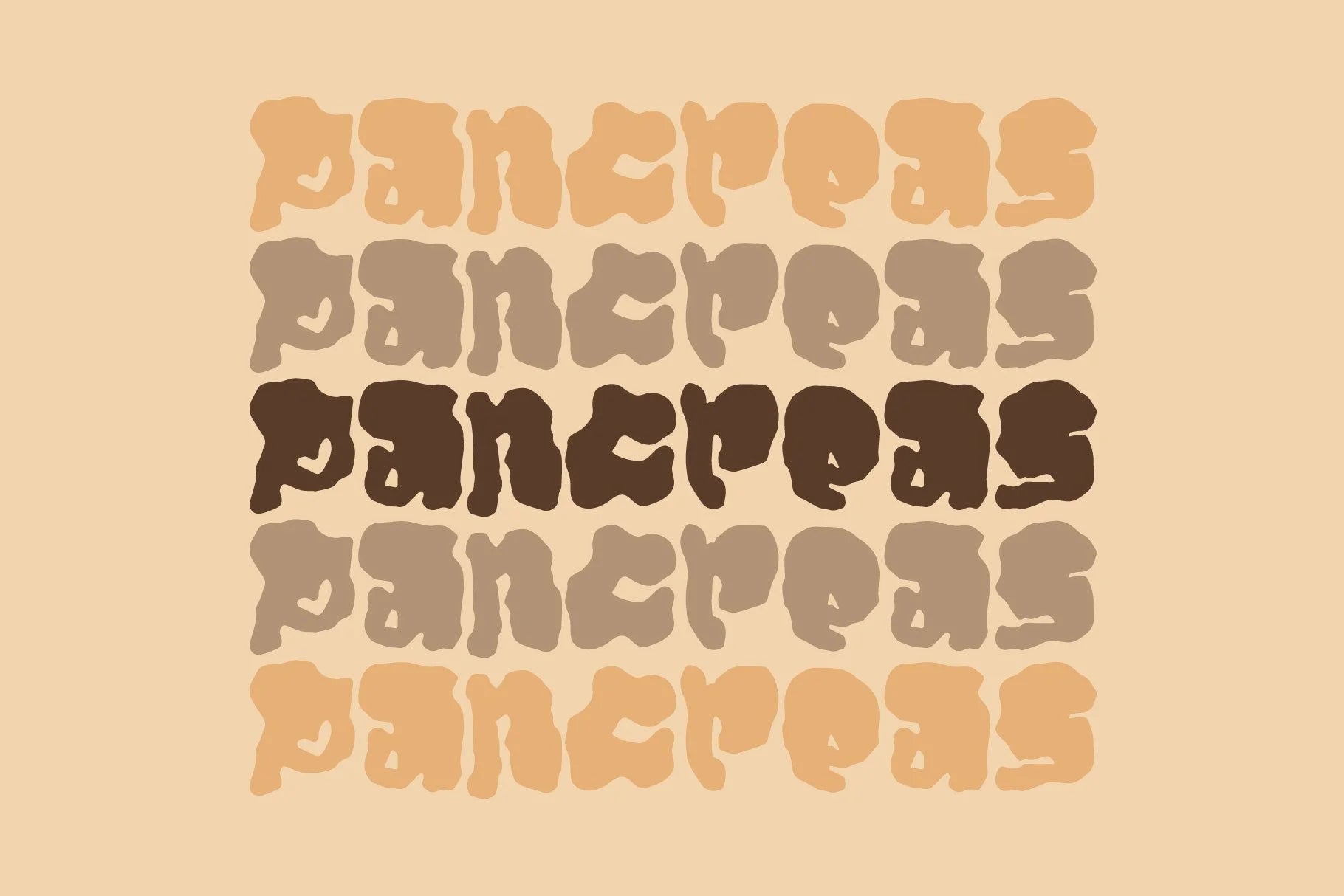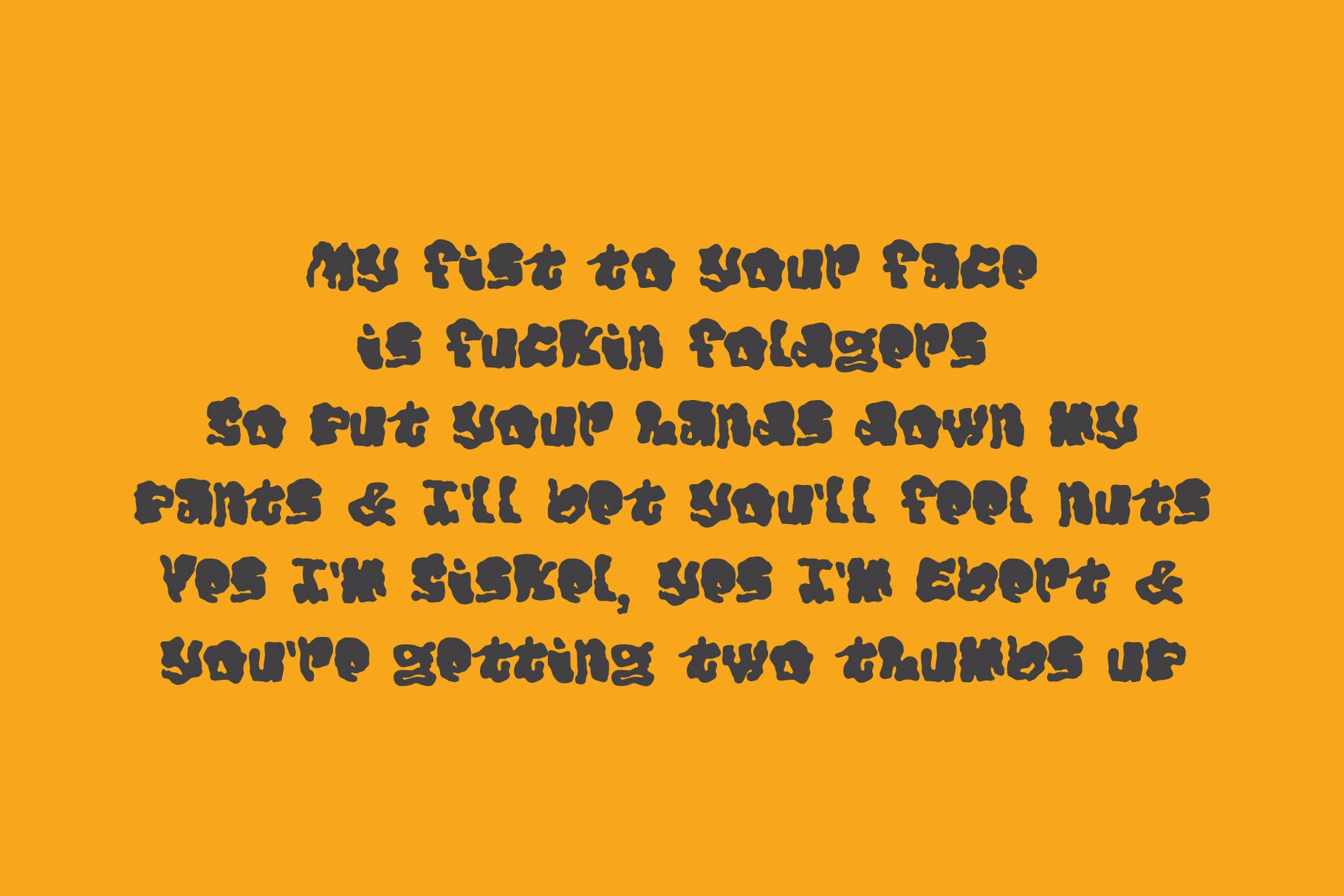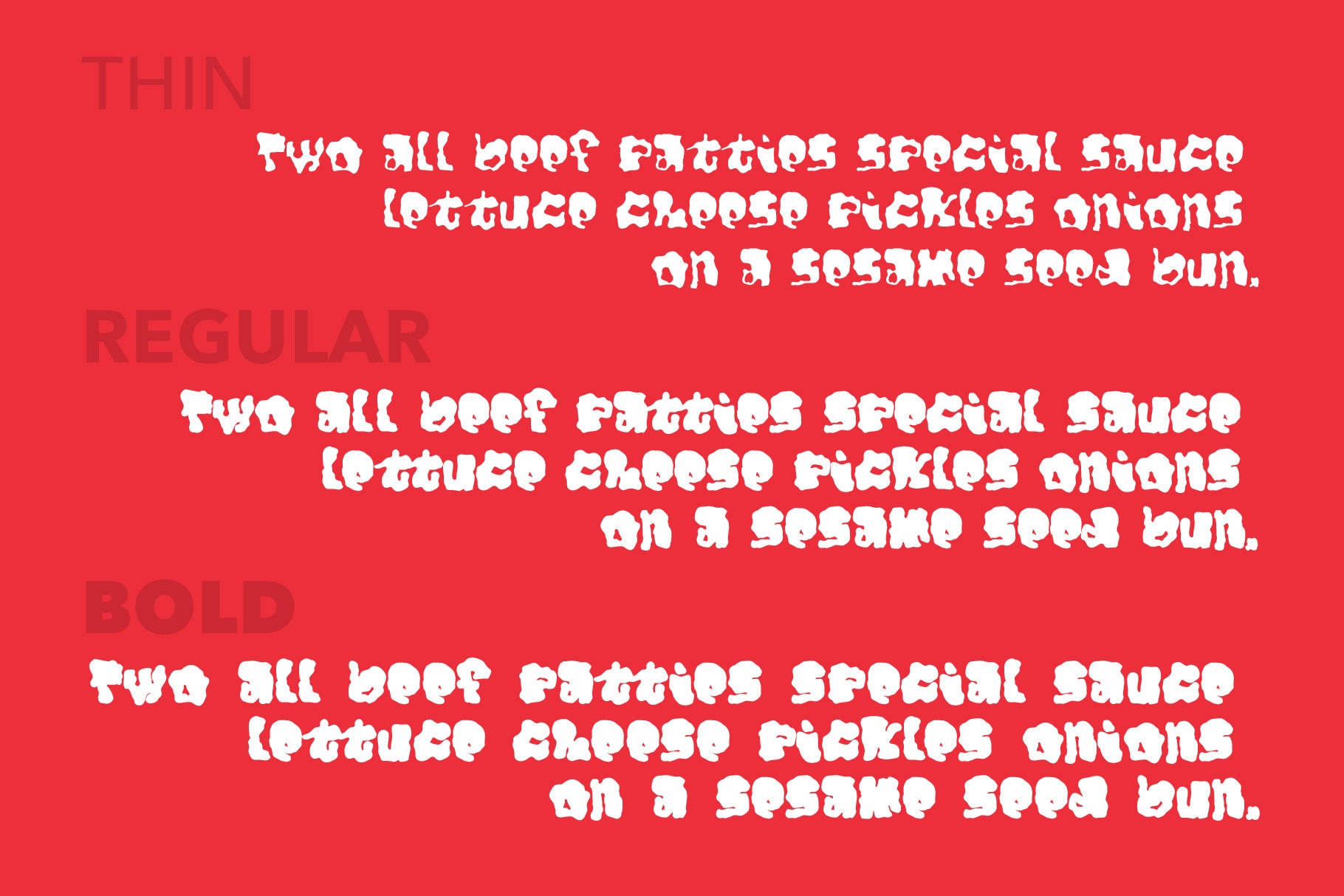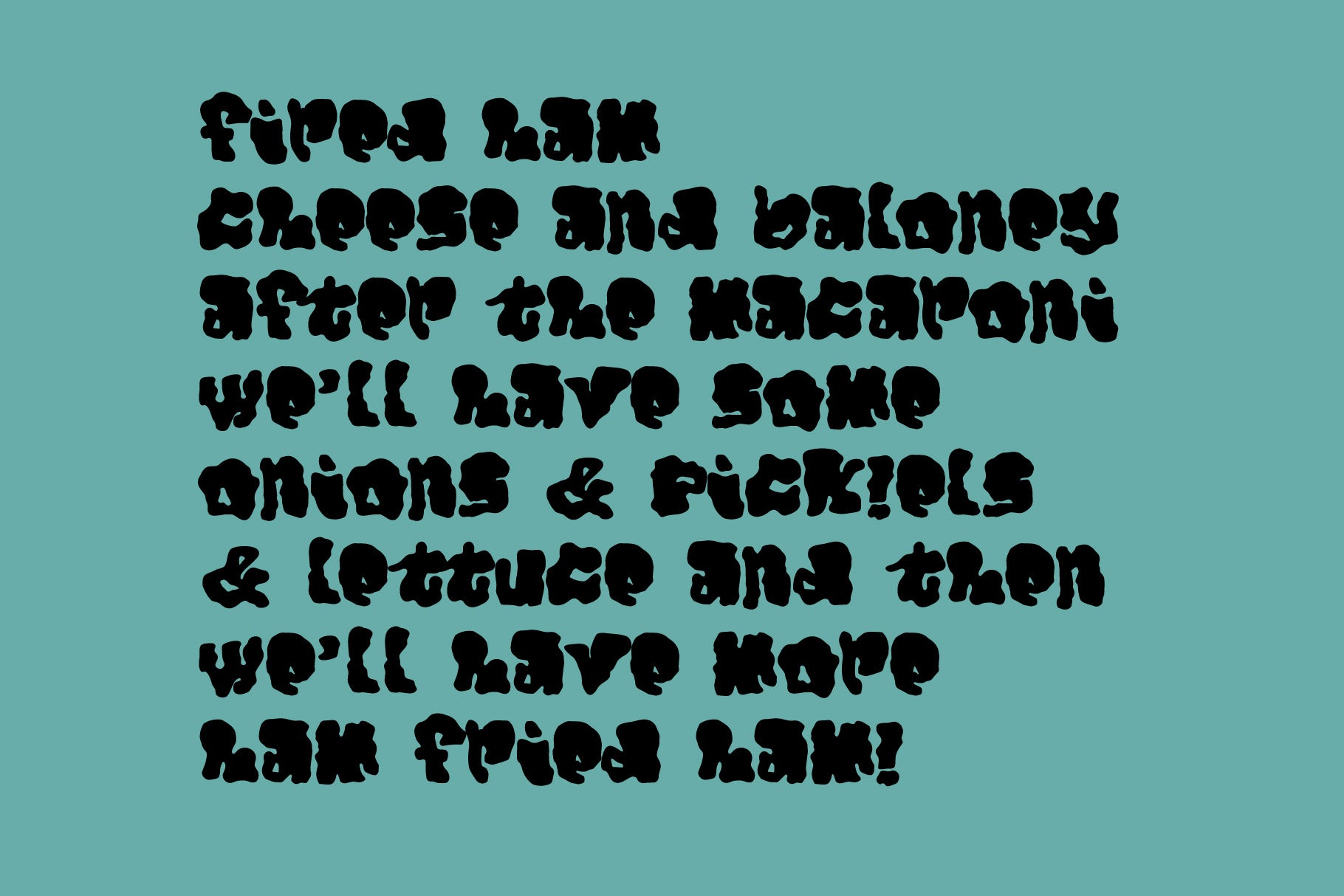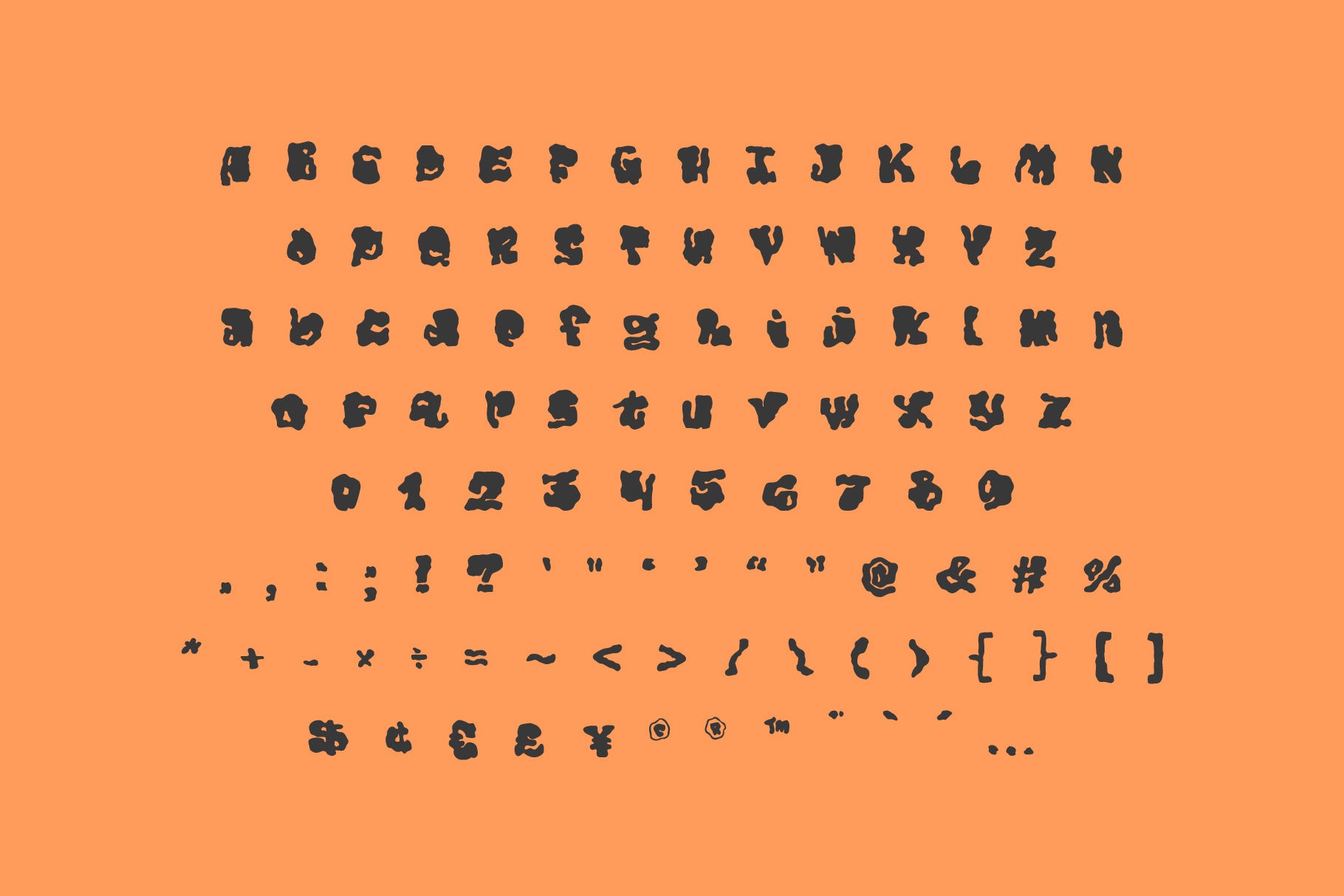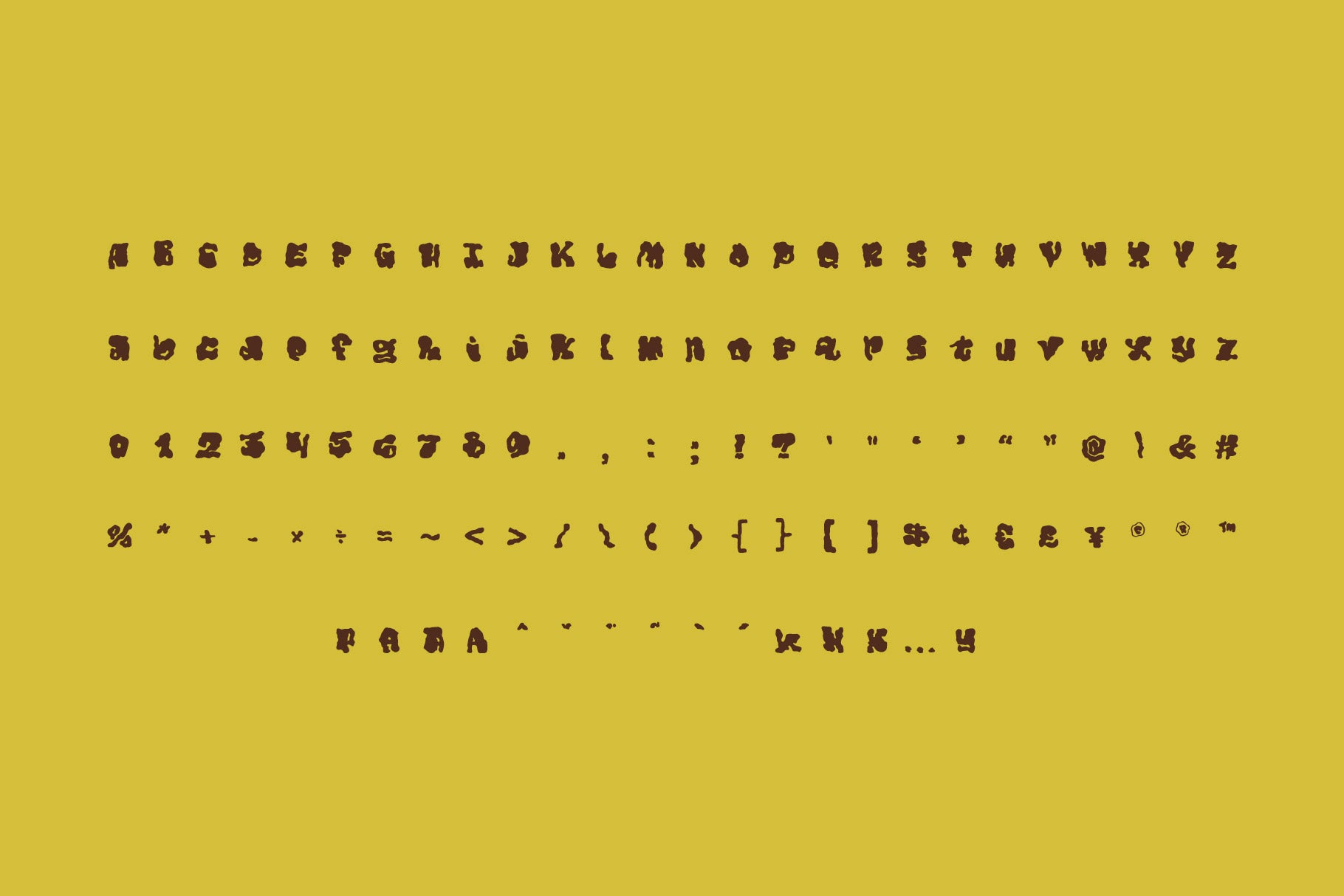
Pancreas is a thick, blobby display typeface born from the discipline and experimentation of the 100 Days of Lettering challenge. The letterforms are loose, confident, and unapologetically heavy—designed to feel playful, imperfect, and full of personality.
The family includes both filled and outlined versions, each offered in three distinct weights, giving you six styles to mix, layer, and stack. Mudflap shines in bold headlines, humorous copy, stickers, apparel, food branding, and anywhere you want type that feels handmade, fun, and a little unruly.
This font splats.
Pancreas